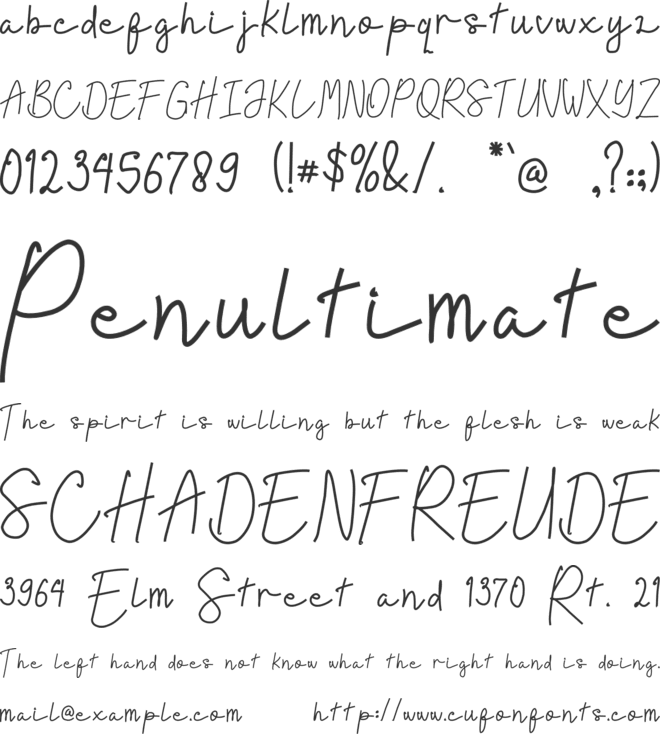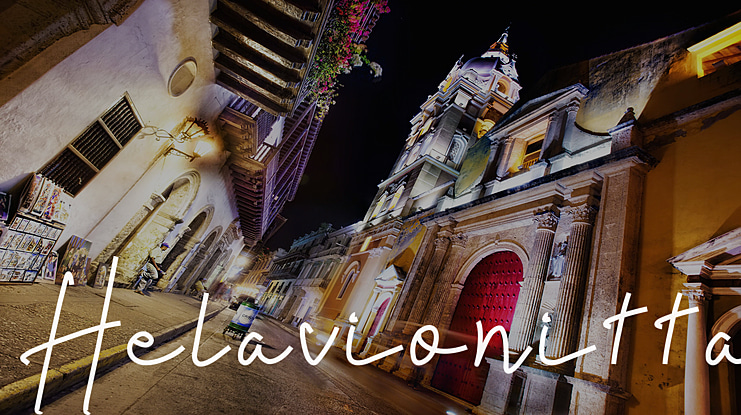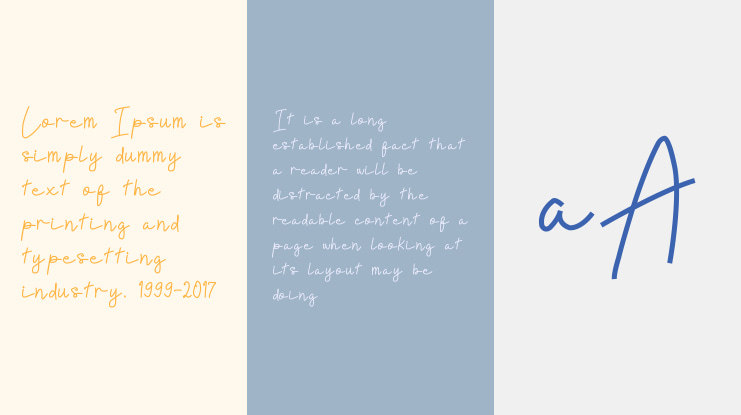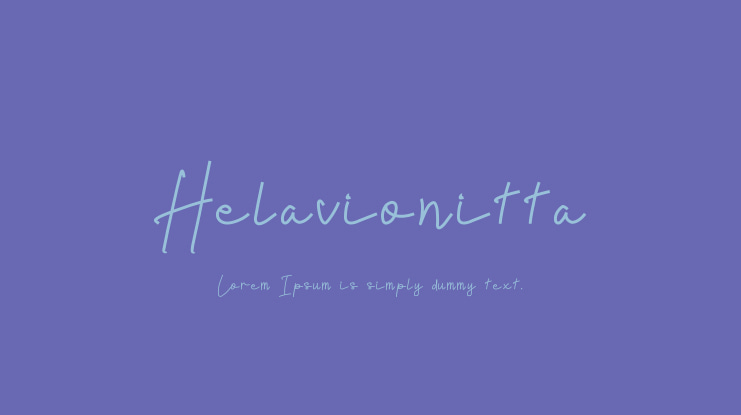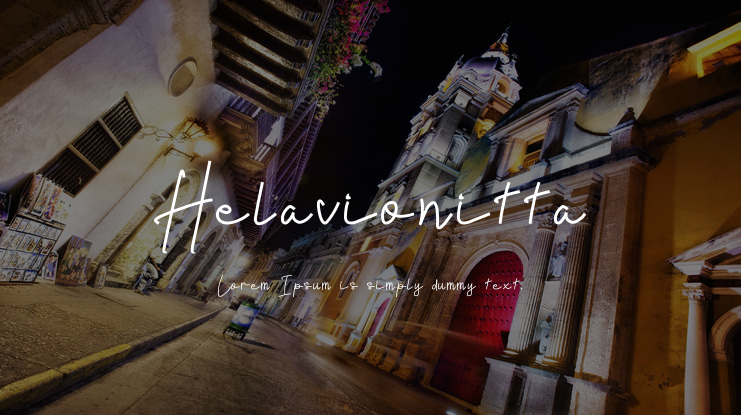
Helavionitta Font
Helavionitta is a Handwritten Monoline Font that has Natural and elegant feels, it suits for any of your commercial projects logo, wedding designs, social media posts, advertisements, product packaging, product designs, label, photography, watermark, invitation, stationery and any projects that need handwriting monoline taste.